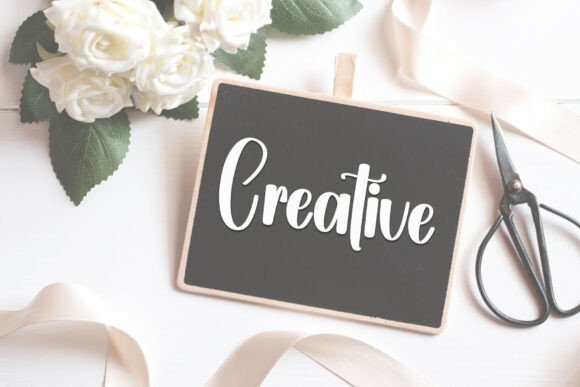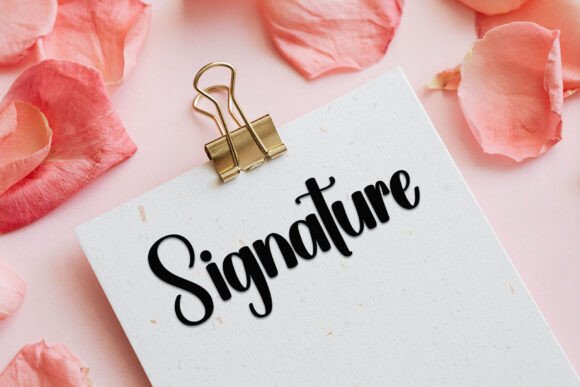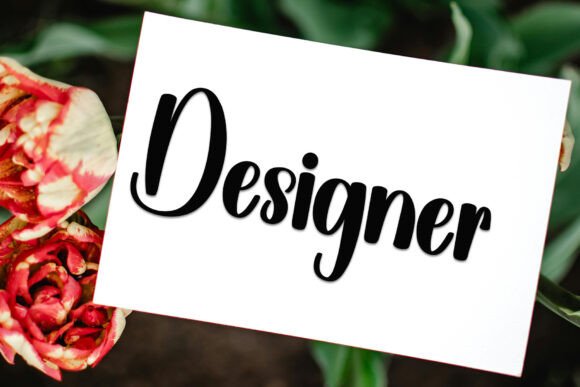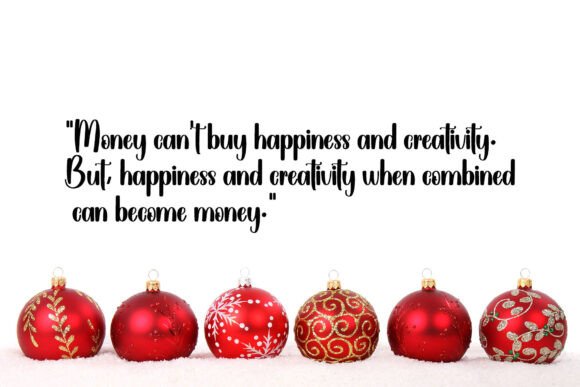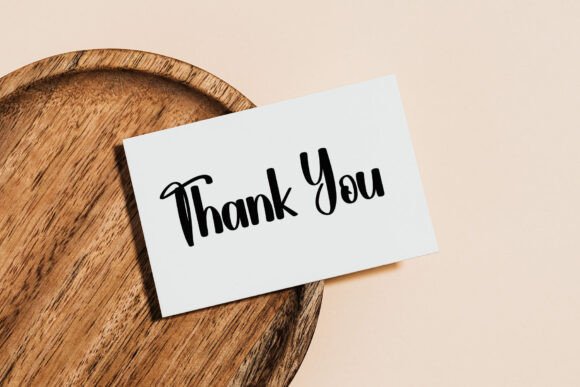
The Story Behind the Script: Unveiling the Black History Font
As designers, we’ve all been there – staring at a blank page, trying to find the perfect font to bring our vision to life. It’s that moment of serendipity, when the right font suddenly appears, and our creative juices start flowing. For me, it was the discovery of the Black History Font, a trendy handwritten script that adds a touch of elegance to any design project.
Black History Font is more than just a trendy font – it’s a celebration of timeless classic calligraphy. With its impeccable form and contemporary atmosphere, it’s the perfect addition to any design project. Whether you’re working on a branding campaign, a wedding invitation, or a social media post, Black History Font is sure to elevate your design game.
As a valuable asset for designers, Black History Font offers a unique blend of sophistication and playfulness. Its versatility makes it a go-to choice for projects that require a touch of class and creativity. By incorporating Black History Font into your design arsenal, you’ll be able to add a new dimension to your work and take your designs to the next level.
Key Features of Black History Font
- Font Family: The Black History Font is a custom-designed font family, consisting of multiple weights and styles to cater to various design needs.
- Unique Characteristics: The font features a unique blend of modern and traditional typography, with bold and elegant lines that pay homage to African American history and culture.
- Customization Options: The font family offers various customization options, including font weights, styles, and ligatures, allowing designers to tailor the font to their specific design needs.
Designer Review: Black History Font
I’ve had the chance to work with the Black History Font, and I must say it’s an intriguing piece of design. ✨ The font’s unique blend of modern and traditional elements pays homage to the rich history of African Americans, which I appreciate.
- The font’s versatility in both digital and print applications is impressive. It can be used in a wide range of contexts, from headings to body text.
- The readability is good, making it suitable for long-form content.
- The historical significance of the font is well-intentioned and thoughtful.
- The font’s weight can be a bit too heavy at times, making it difficult to read in certain contexts.
- The glyphs could be more detailed and refined, especially for certain characters.
Overall, the Black History Font is a well-intentioned effort, but it falls short in a few areas. With some refinement, it could be a powerful tool for designers looking to add a touch of history to their work.